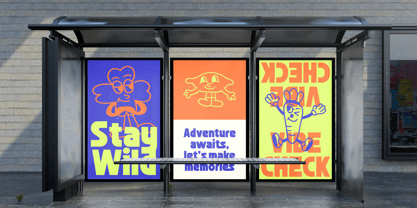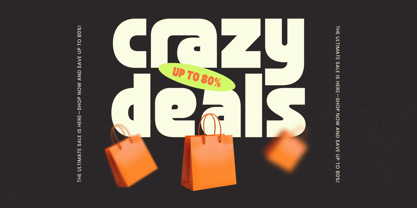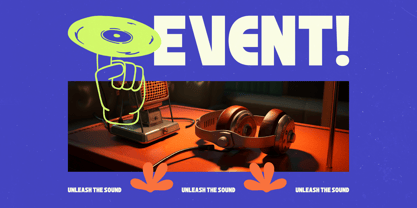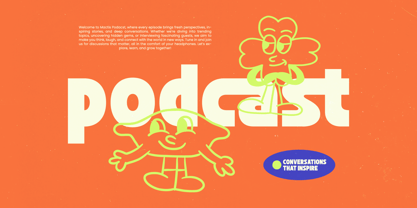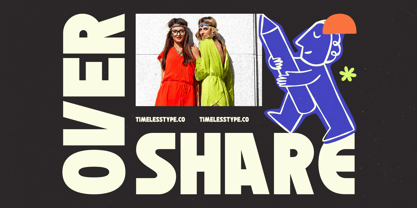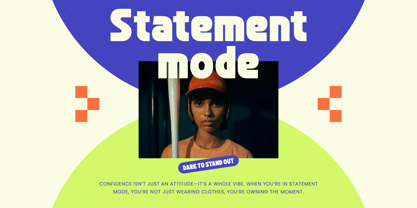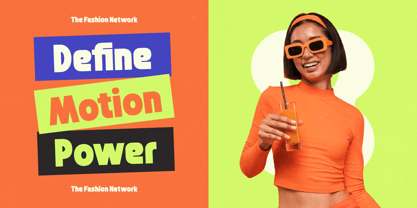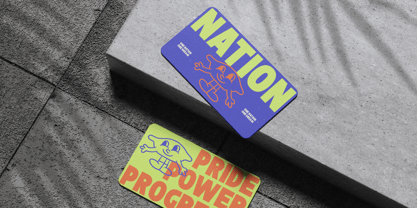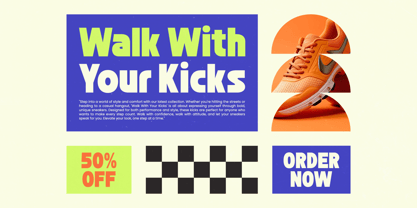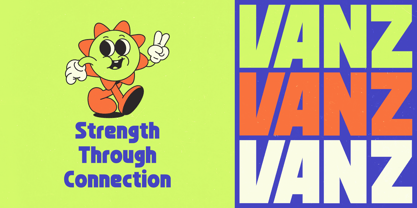
Mactis
von Timelesstype Studio
Die Schriftfamilie Mactis wurde von Heru Utama Putra entworfen und von Timelesstype Studio veröffentlicht. Mactis enthält 2 Stile und Familienpaketoptionen. Mehr über diese Familie
Mactis is a bold sans display typeface designed for loud, playful, and attention-grabbing visuals. With strong geometric shapes, chunky curves, and a clean modern structure, this font delivers powerful character while staying highly readable. Featuring 17 ligatures, 7 alternates, and 355 total glyphs, Mactis is perfect for posters, cartoons, branding, merchandise, gaming graphics, and any design that needs a confident, high-impact voice. Its fun personality and solid forms make it ideal for both digital and print projects.
Designer: Heru Utama Putra
Aktuelle Foundry: Timelesstype Studio